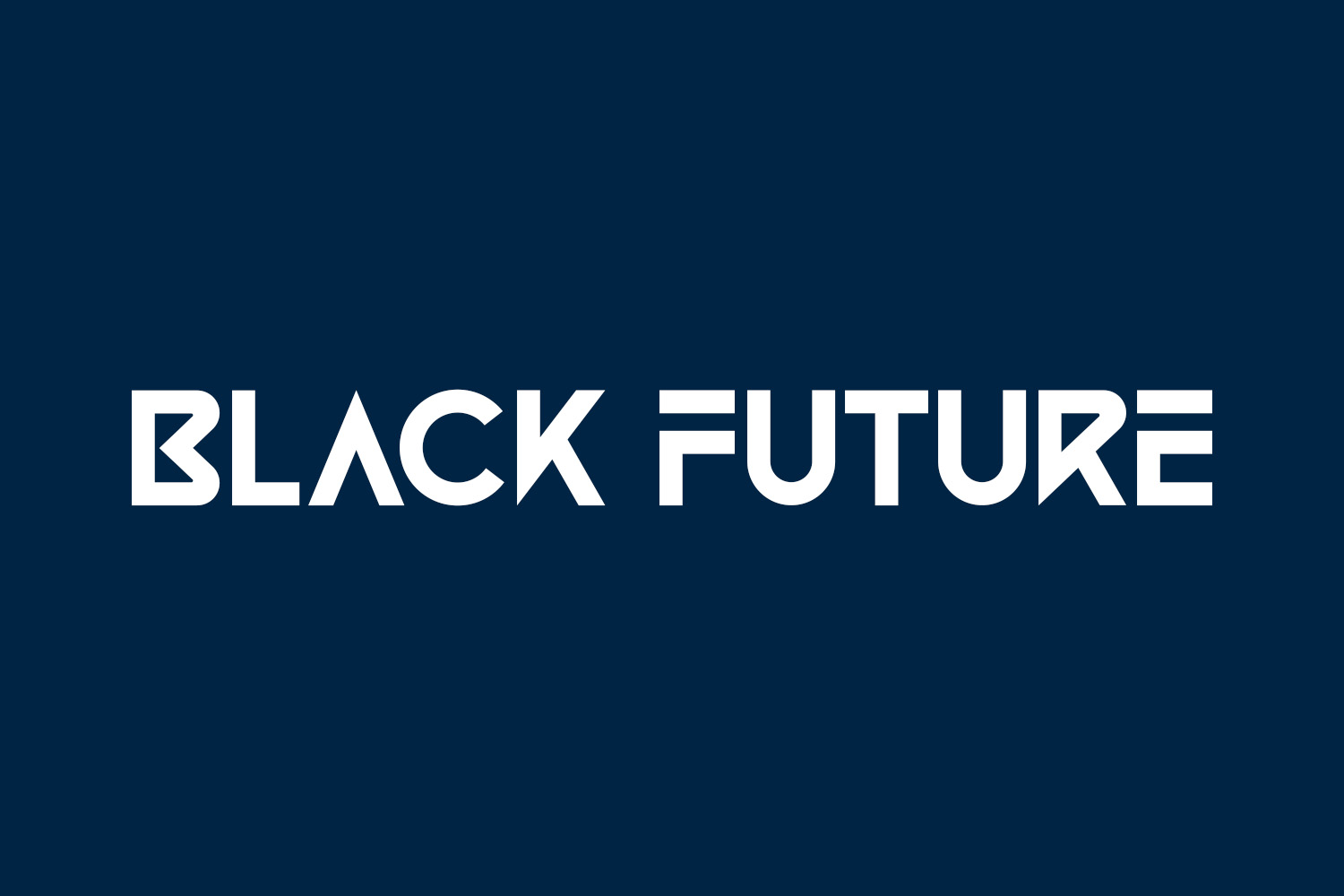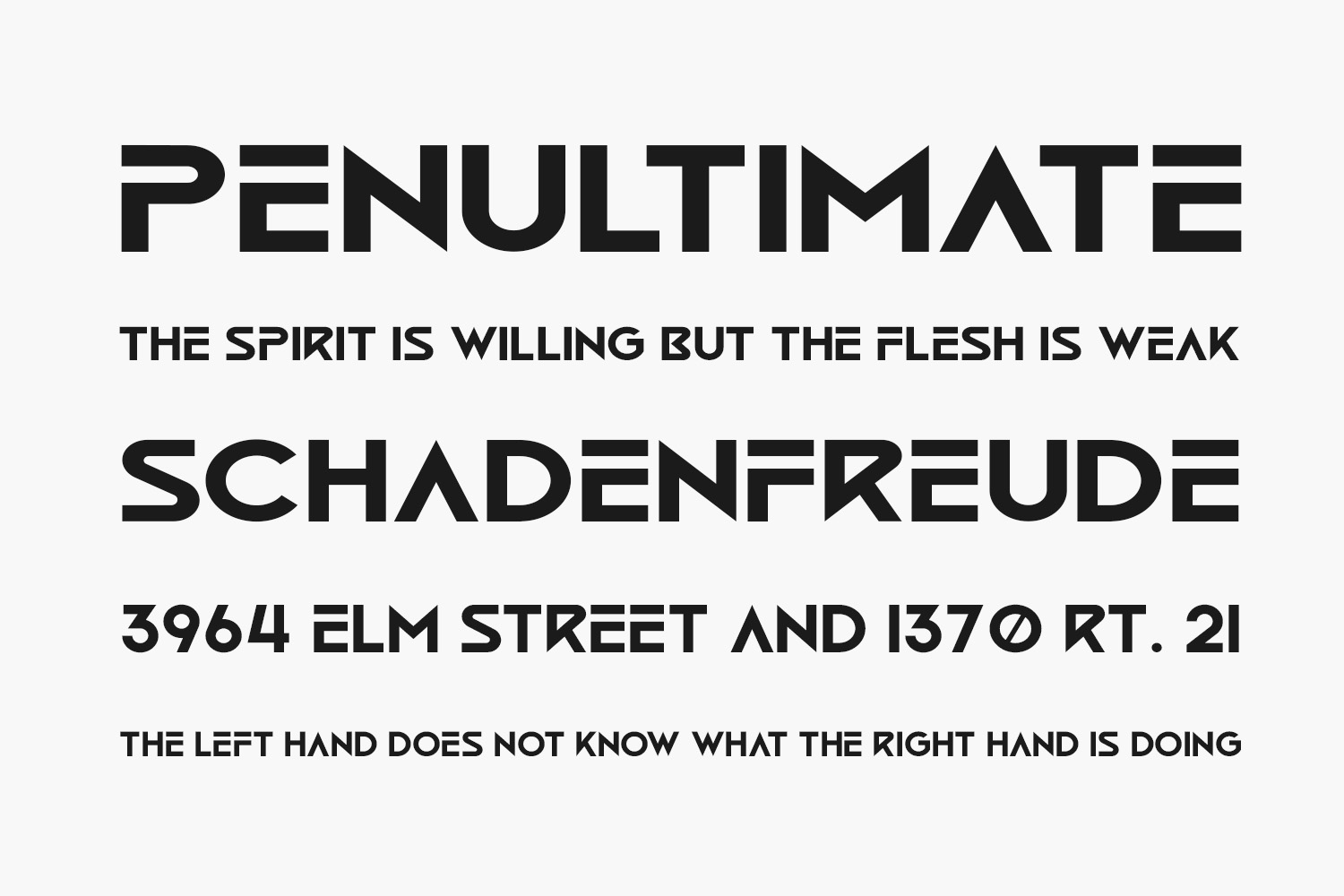
Discover the sleek and futuristic Black Future Free Font serif display font! With its unique and cutting-edge design, this font is perfect for all your projects requiring a stylish and robotic vibe. Black Future Free Font is free for personal use only. Please purchase the full version for commercial use.